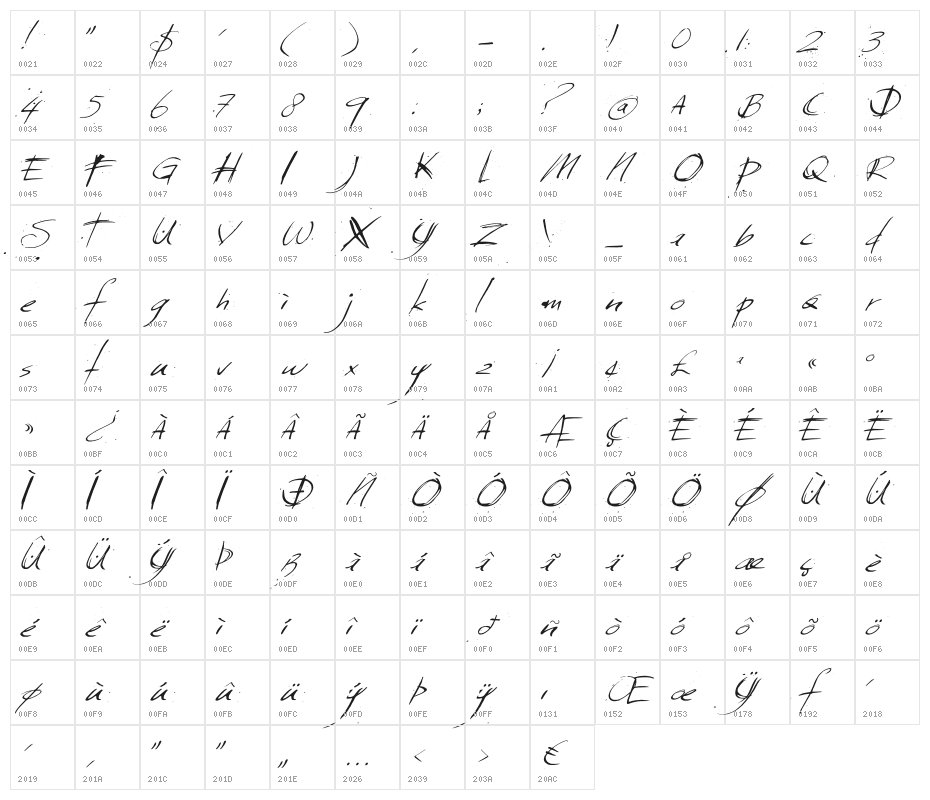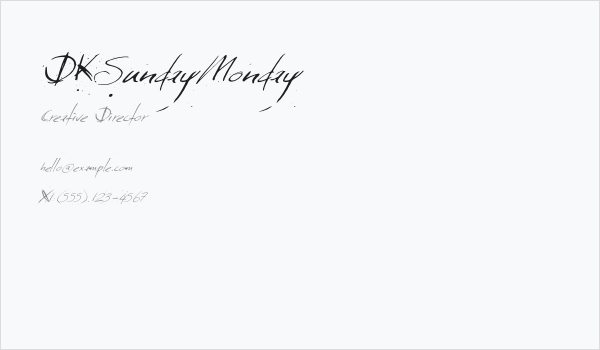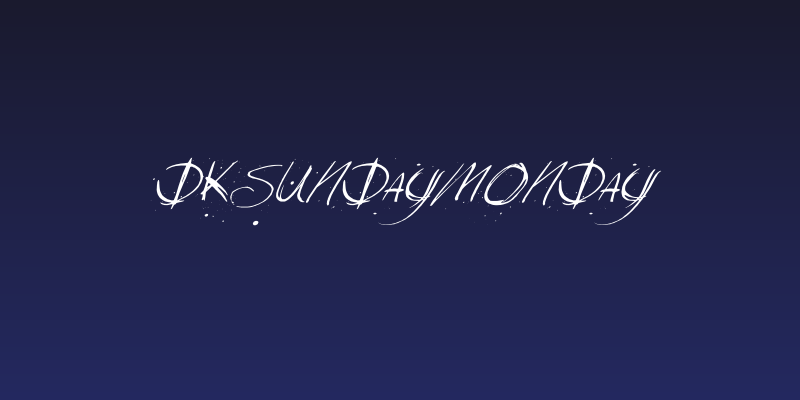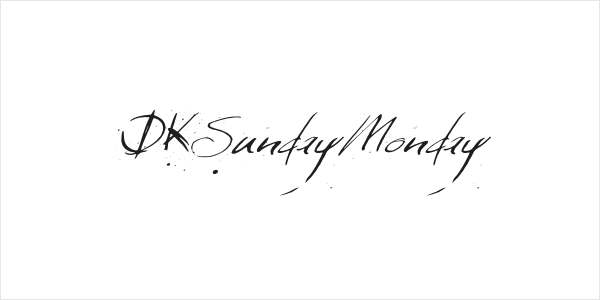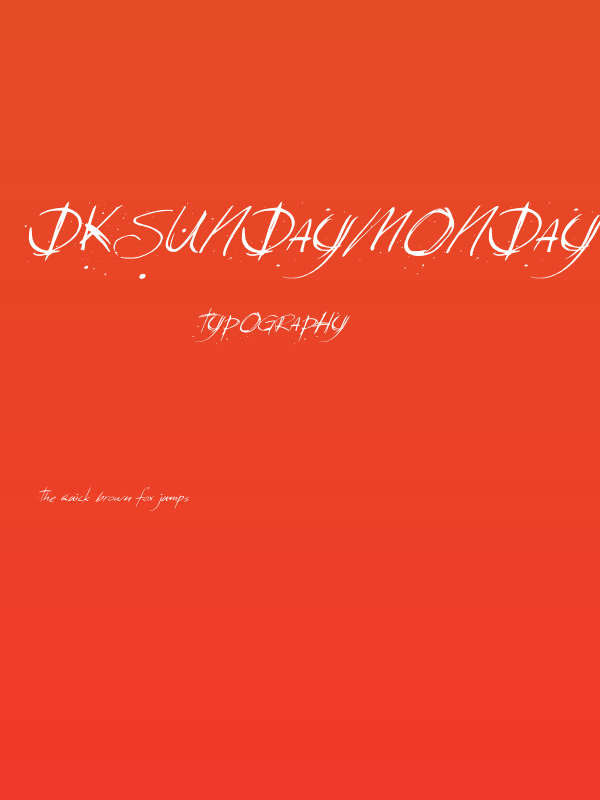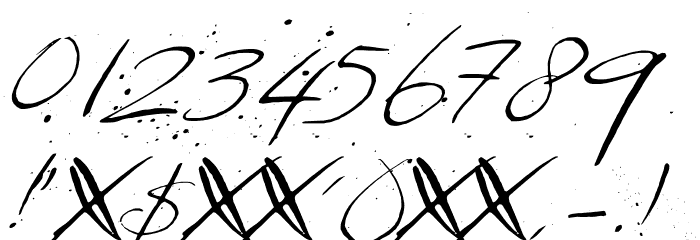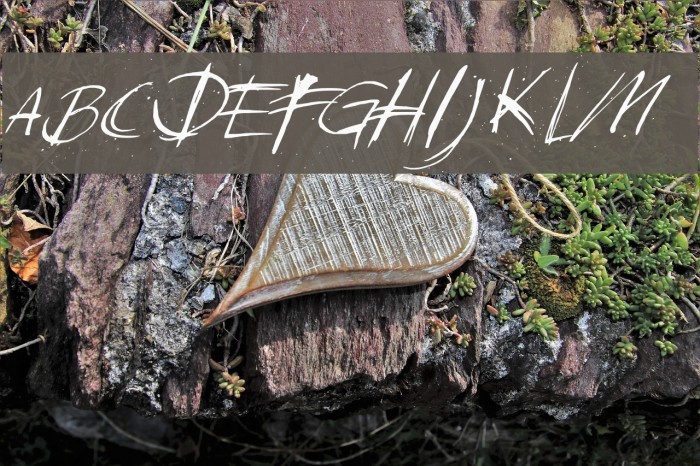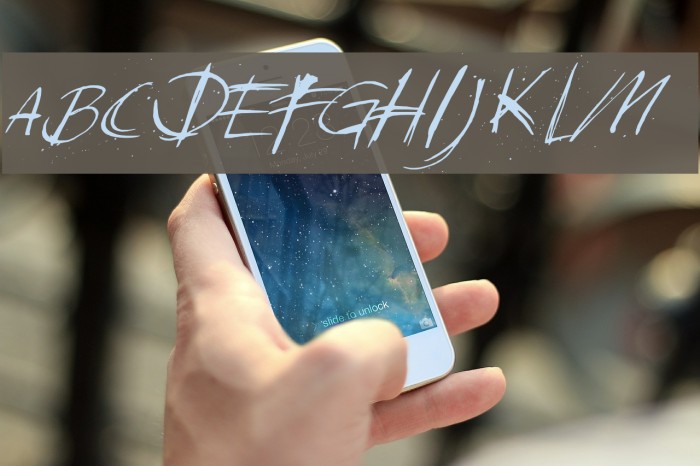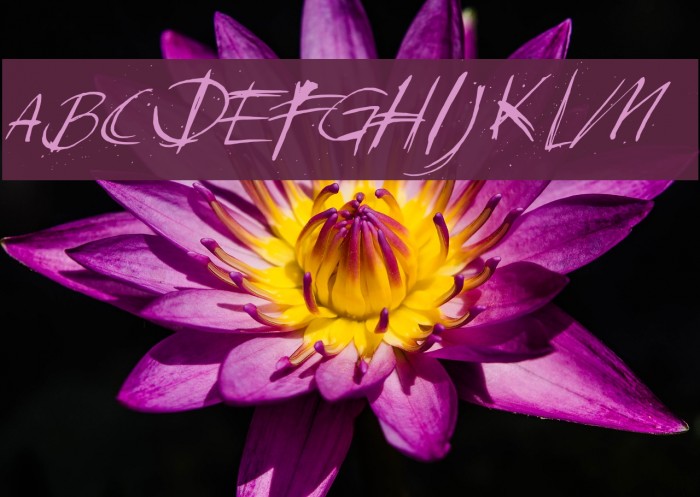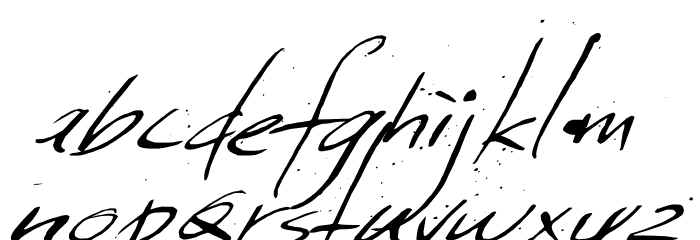
DKSundayMonday Font
DKSundayMonday Description
This font exhibits a dynamic and expressive handwritten style, characterized by its energetic strokes and irregular forms. The letters have a spontaneous and artistic flair, with varying line thicknesses that create a sense of movement and vitality. The uppercase letters are bold and prominent, while the lowercase letters maintain a fluid and cursive appearance. The numerals and special characters follow the same lively and freeform aesthetic, adding to the overall creative impression. This font's unique style is perfect for projects that require a personal and artistic touch.
| Proposed Projects | Ideal for artistic projects, personal branding, creative posters, and expressive invitations. |